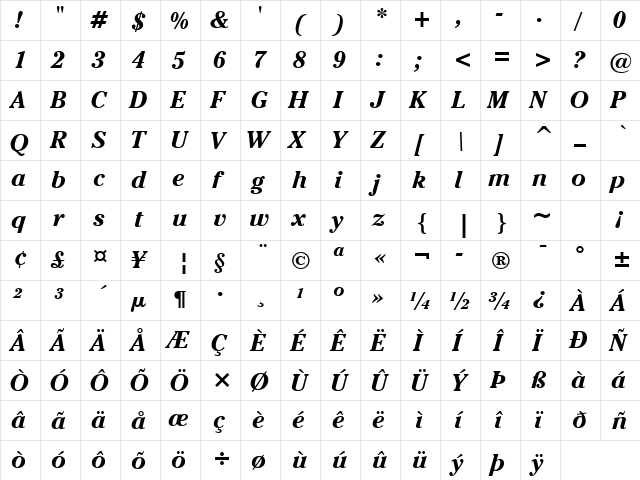
ChelthmITC Bk BT Bold Italic Font Preview
ChelthmITC Bk BT Bold Italic
Design Context for ChelthmITC Bk BT Typeface
ChelthmITC Bk BT takes a measured approach to typography — its balanced proportions and neutral character make it a reliable workhorse for both digital and print work. Its italic angle brings a sense of urgency and motion to the letterforms. Its bold stroke weight gives it real presence on the page.